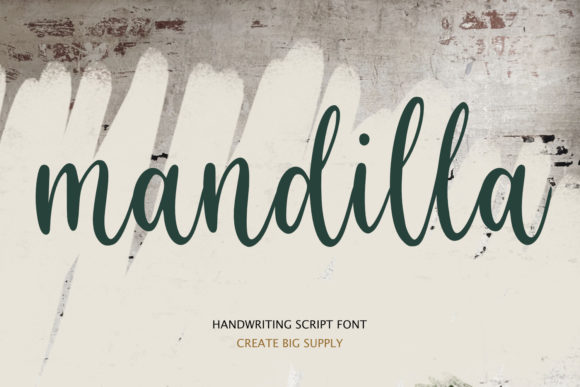
Adorn your digital creations with the elegance and charm of Mandilla, a captivating script font that exudes a natural flow. Its graceful curves and stylish design bring a touch of romance and sophistication to any project.
Unleash your creative potential with a font family that knows no bounds. Mandilla's versatile nature makes it an ideal choice for a wide range of applications, from heartwarming greeting cards and eye-catching headlines to sophisticated logos and enchanting invitations.
Step into a world of creative possibilities with Mandilla, a font crafted to evoke emotions and make a lasting impression. Whether you're a seasoned designer or a passionate crafter, this font is your key to unlocking captivating designs that resonate with your audience.
Experience the versatility of Mandilla, a font that effortlessly adapts to your creative vision. Its seamless integration with Cricut machines makes it a must-have tool for personalized creations, allowing you to add a unique touch to your monograms, decals, and other projects.
Discover the beauty and grace of Mandilla, a font that transcends the ordinary and captivates the senses. Its distinct style adds a touch of elegance to invitations, logos, and social media posts, leaving a lasting impression on your audience.